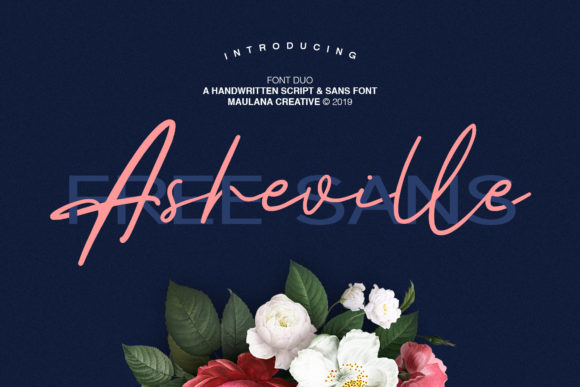
Welcome to the realm of Asheville Duo Font, a breathtaking font duo that will ignite your creative spark and transform your designs into masterpieces. Asheville is not just a font; it's an experience that captures the essence of timeless beauty and contemporary elegance.
With Asheville, you'll embark on a journey through emotions, expressing your thoughts and ideas with a touch of sophistication and charm. The script font, with its graceful curves and delicate strokes, will caress your words, adding a hint of romance and personality. The sans serif font, with its clean lines and modern appeal, will provide a sturdy foundation, ensuring your message is conveyed with clarity and impact.
Asheville is not just another font; it's a versatile chameleon that adapts effortlessly to your creative vision. Whether you're designing logos, branding materials, wedding invitations, or social media posts, Asheville will elevate your work to new heights, leaving a lasting impression on your audience.
But what truly sets Asheville apart is its emotional resonance. Each letter, each word, each line crafted with Asheville carries a weight of meaning, evoking emotions that transcend the boundaries of language. Your designs will speak volumes, captivating your audience with their depth and sincerity.
So, if you yearn for a font that's more than just a collection of letters, if you seek a font that ignites your creativity, stirs emotions, and leaves an indelible mark on your designs, then Asheville Duo Font is your destined choice. Embrace the Asheville experience and watch your creative dreams come to life.